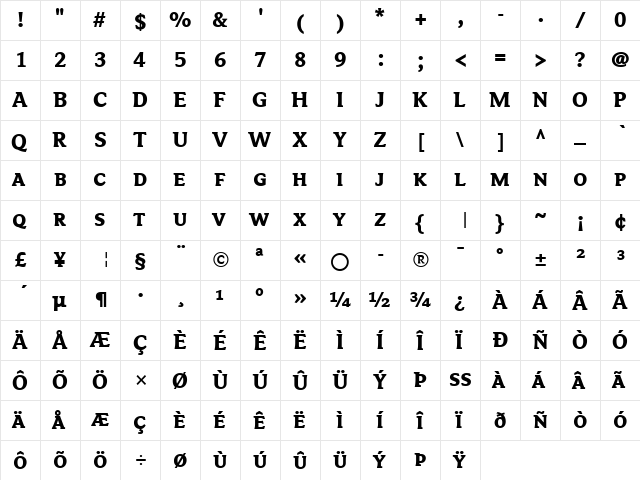
Avance Bold Font Preview
Avance Bold
Avance Bold Font Details
| Foundry | Evert Bloemsma, published by Fontshop International for the FontFont library |
Design Context for Avance Typeface
Avance is a composed and adaptable typeface that performs quietly and consistently across a wide range of design contexts. The heavy weight commands attention and anchors typographic hierarchies.